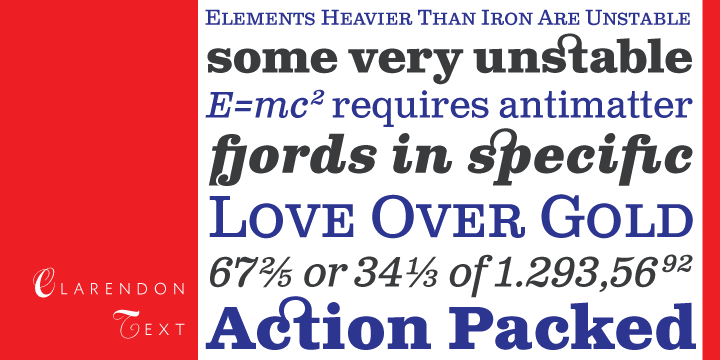
Clarendon Text Pro is a slab serif font family. This typeface has four styles and was published by Canada Type.
Clarendon Text is a contemporary remake of the truly classic slab serif typeface with a distinctively clear and legible visibility. It is a widely usable text type suited equally well to advertising, books, publications, and a wide range of corporate literature where large amounts of reading matter call for distinction and style without sacrificing readability.
The rich, full-bodied style of Clarendon Text takes its primary inspiration from the classic 1953 Hoffmann/Eidenbenz polishing of the mid-nineteenth century English slab serifs originally conceptualized by extraordinary craftsmen like Vincent Figgins and Robert Besley. The italic styles of Clarendon Text take their cue from Aldo Novarese